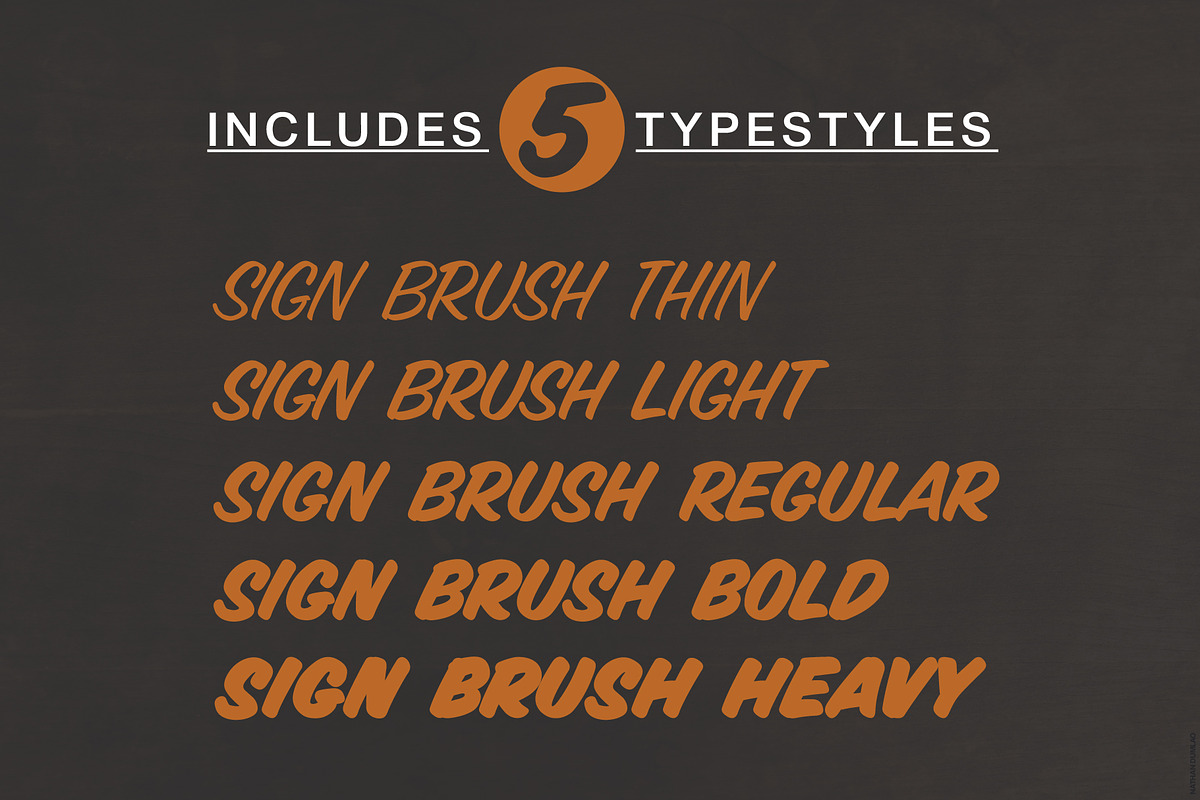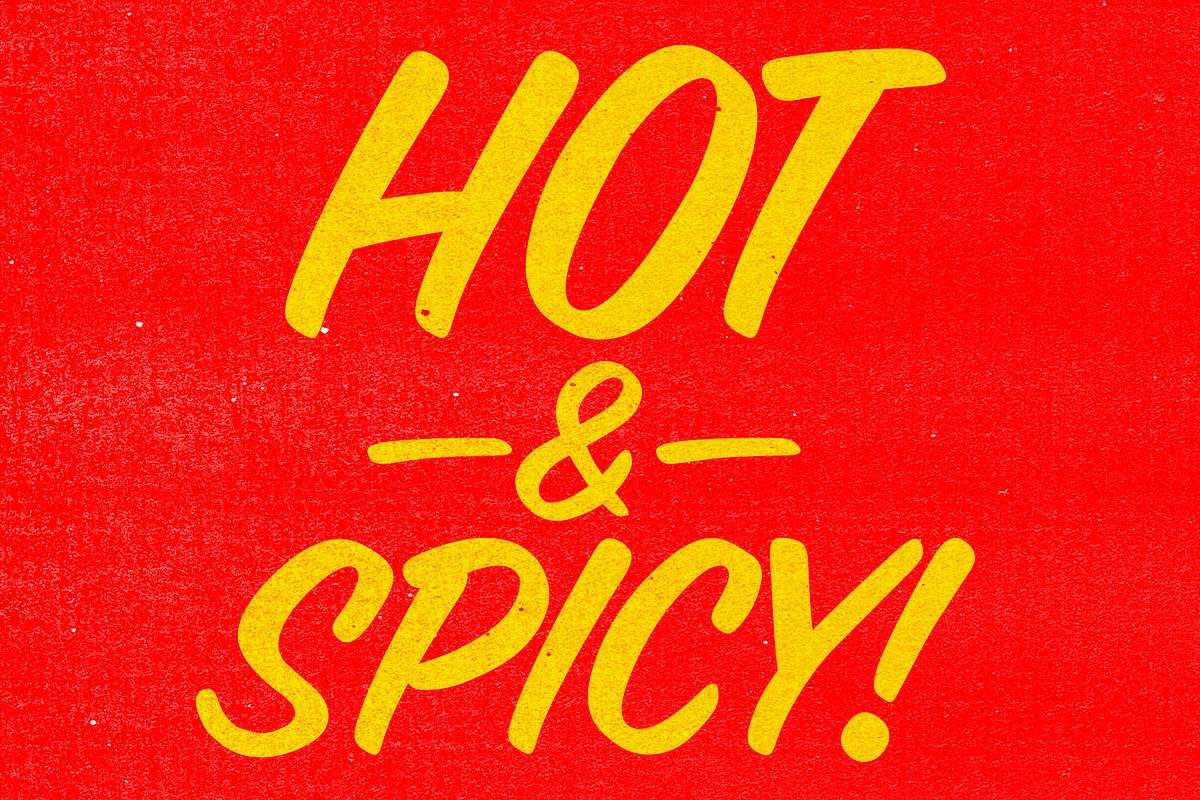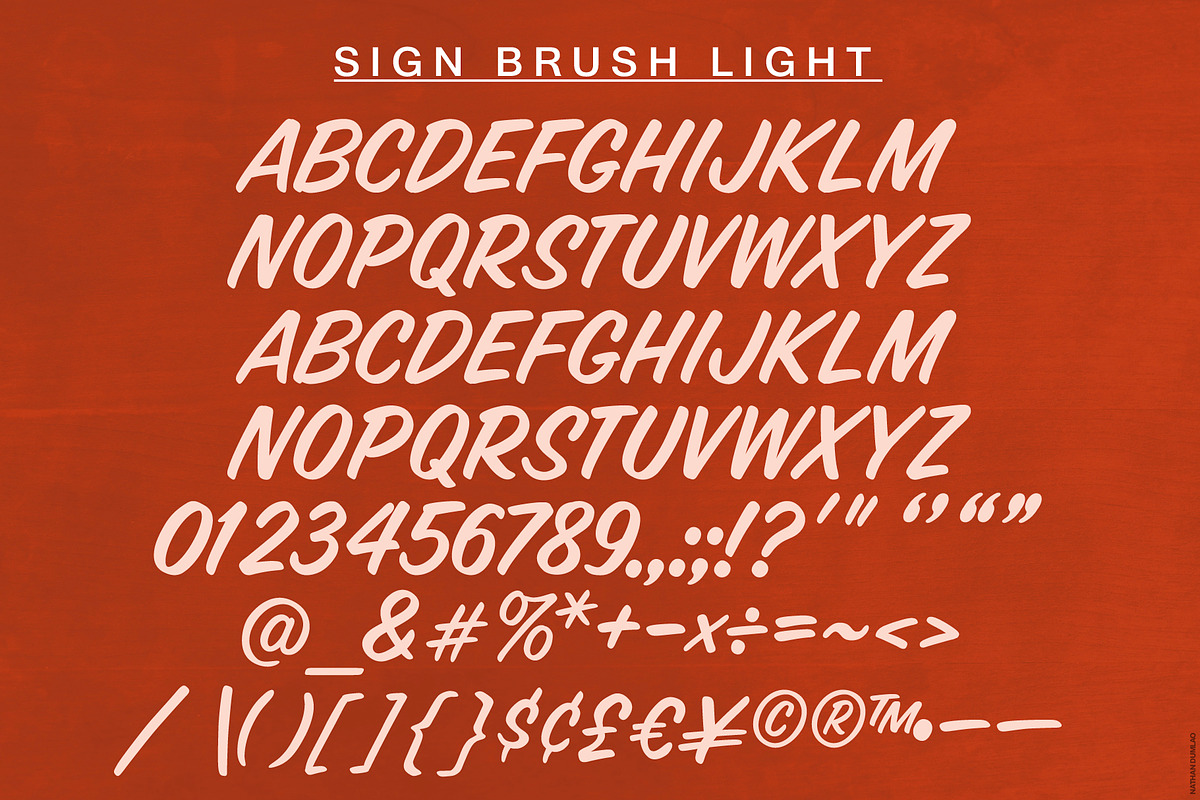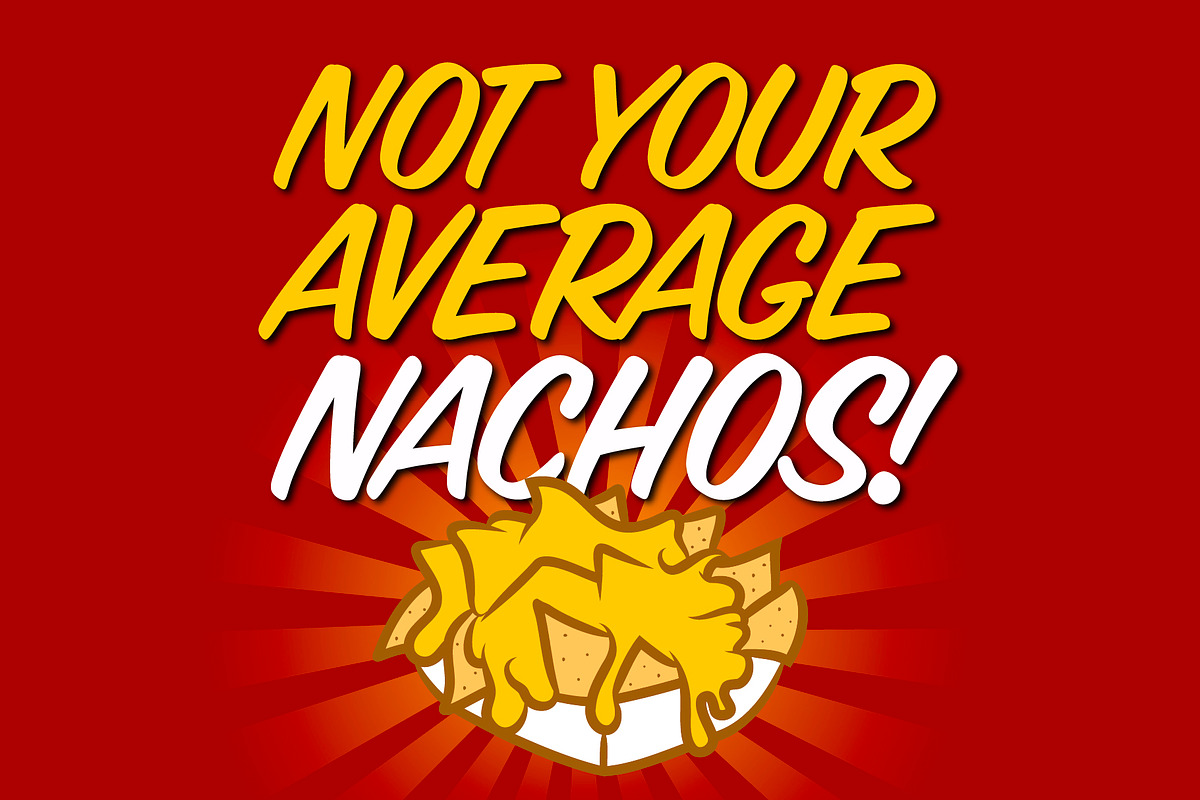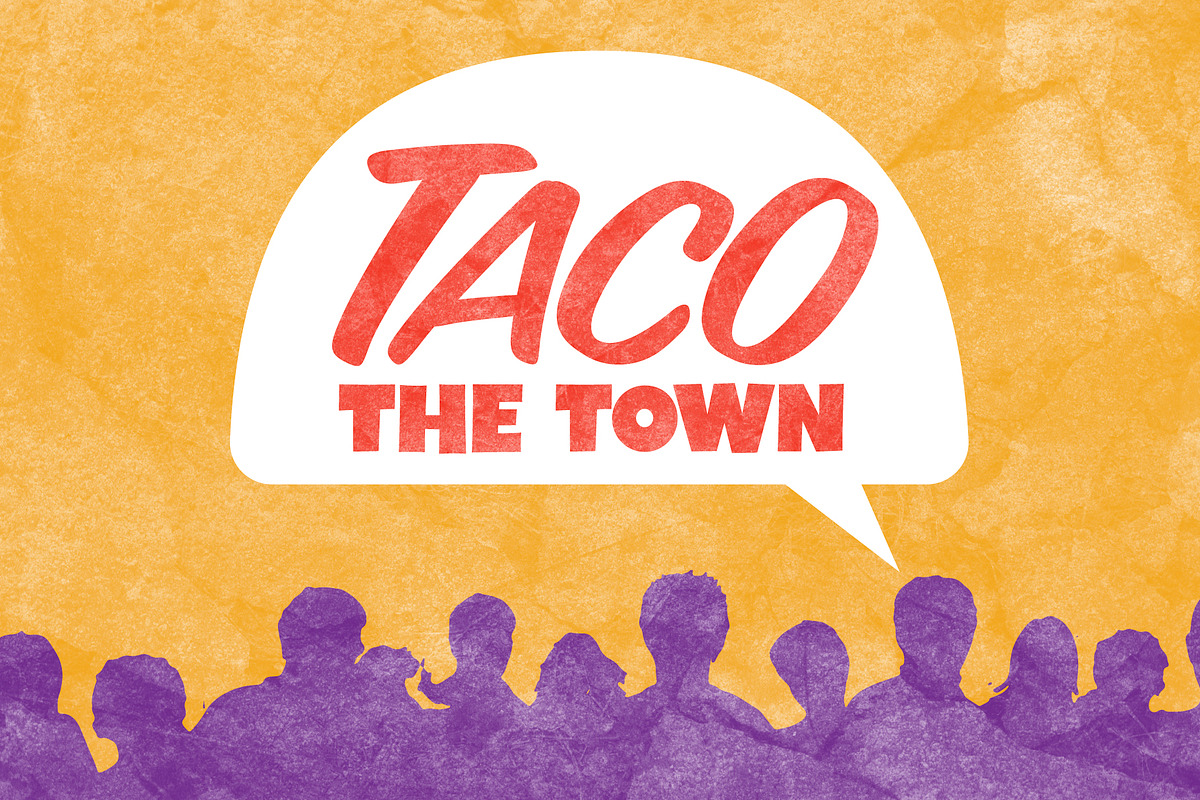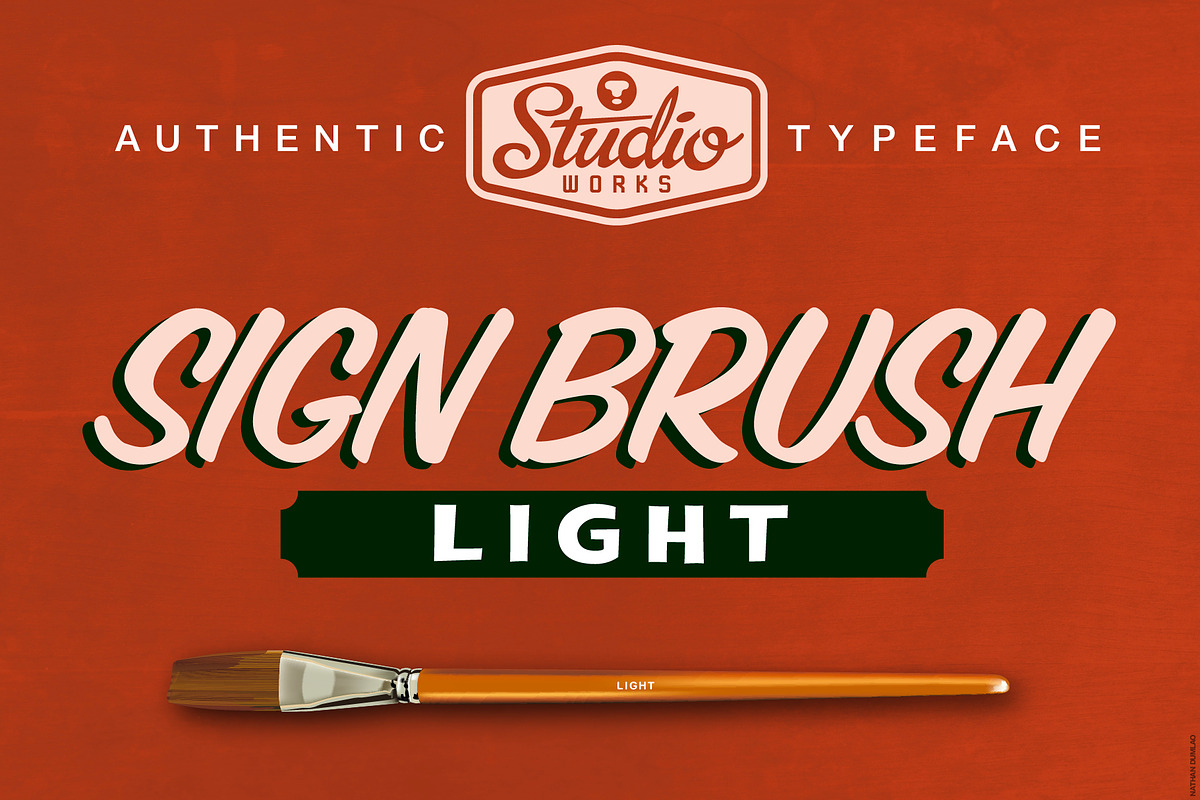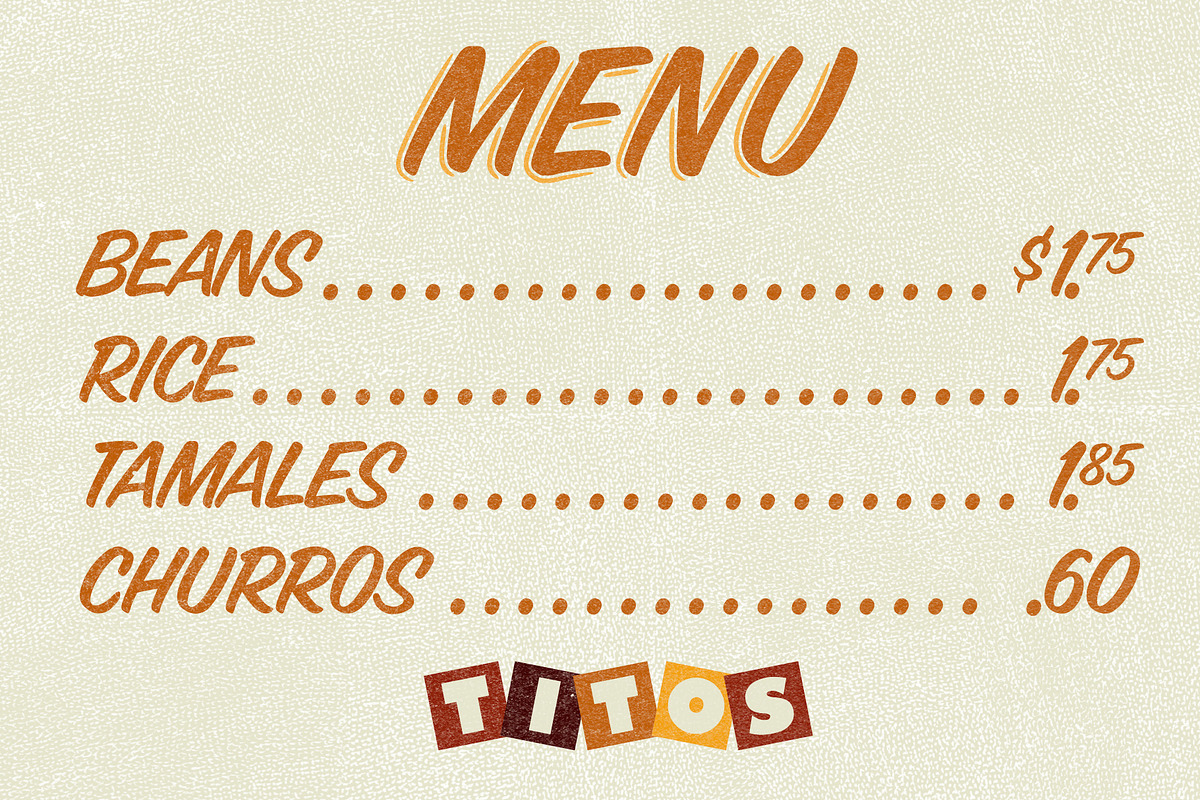
Sign Brush Light | Display Type
StudioWorks presents •• S I G N • B R U S H • L I G H T •• — a lean, one-stroke, casual display typeface!
Sign Brush Light skillfully imitates the brush-lettered type of artisanal sign painters. The signature one-stroke lettering style achieved with the special sable brush featured tapered strokes and gentle angles. Sign Brush Light unlocks the time-honored look of hand-painted characters to adorn your logos, headlines, posters and signage with retro appeal.
Sign Brush Light includes:
- Single Case (capital) A-Z characters
- Numbers (0-9)
- Standard punctuation and glyphs
Use Sign Brush Light to bring that all-purpose, stylistic, brush-lettered charm to all your designs quickly and easily!